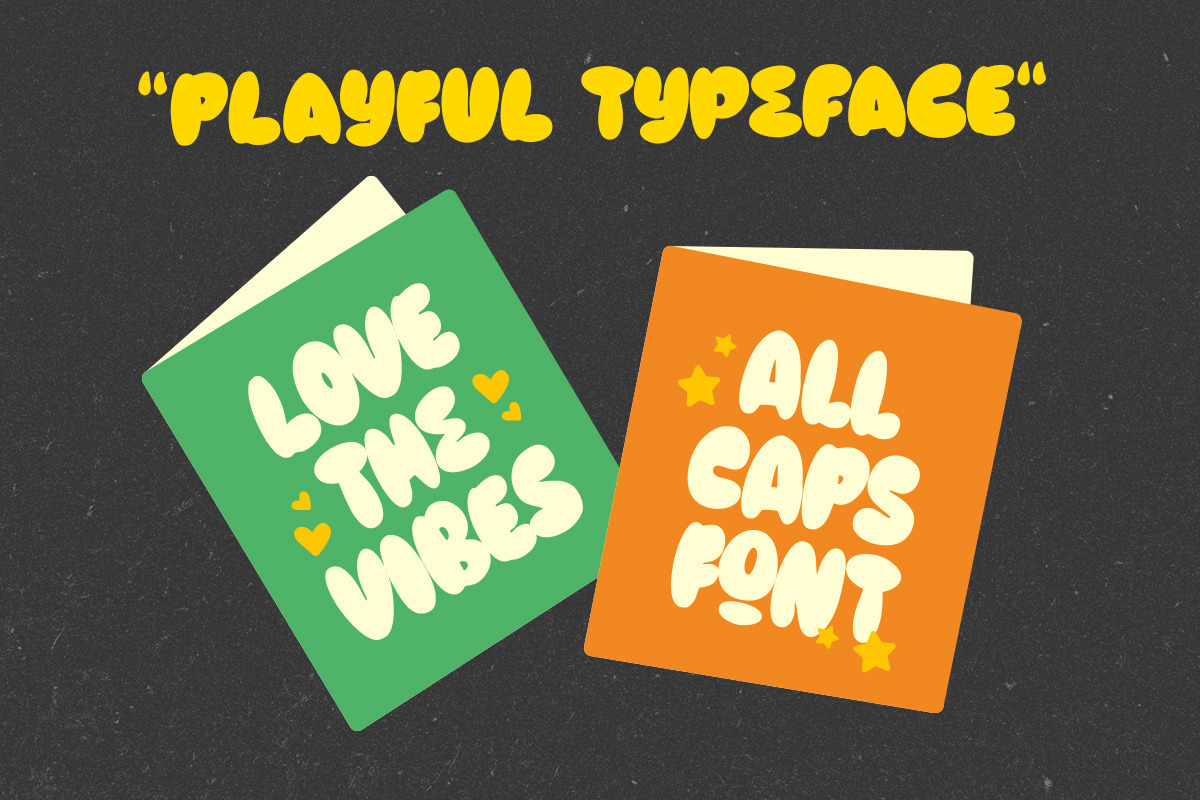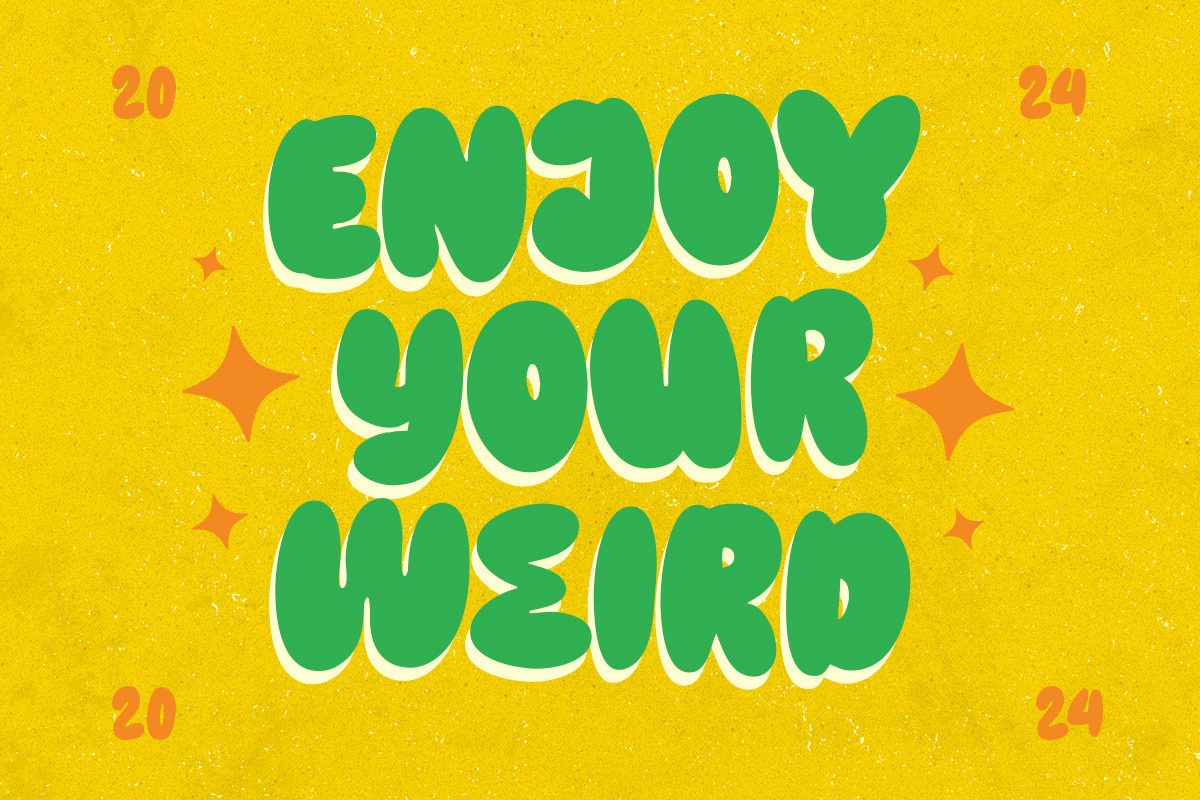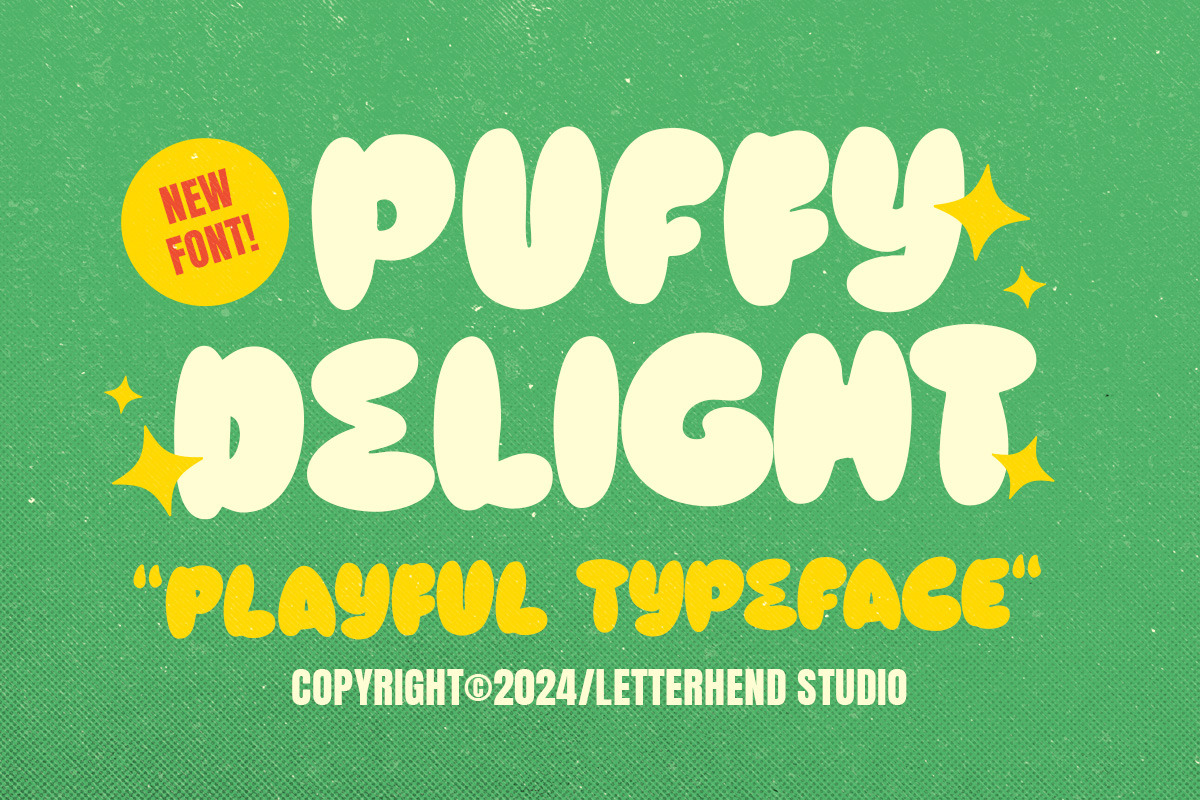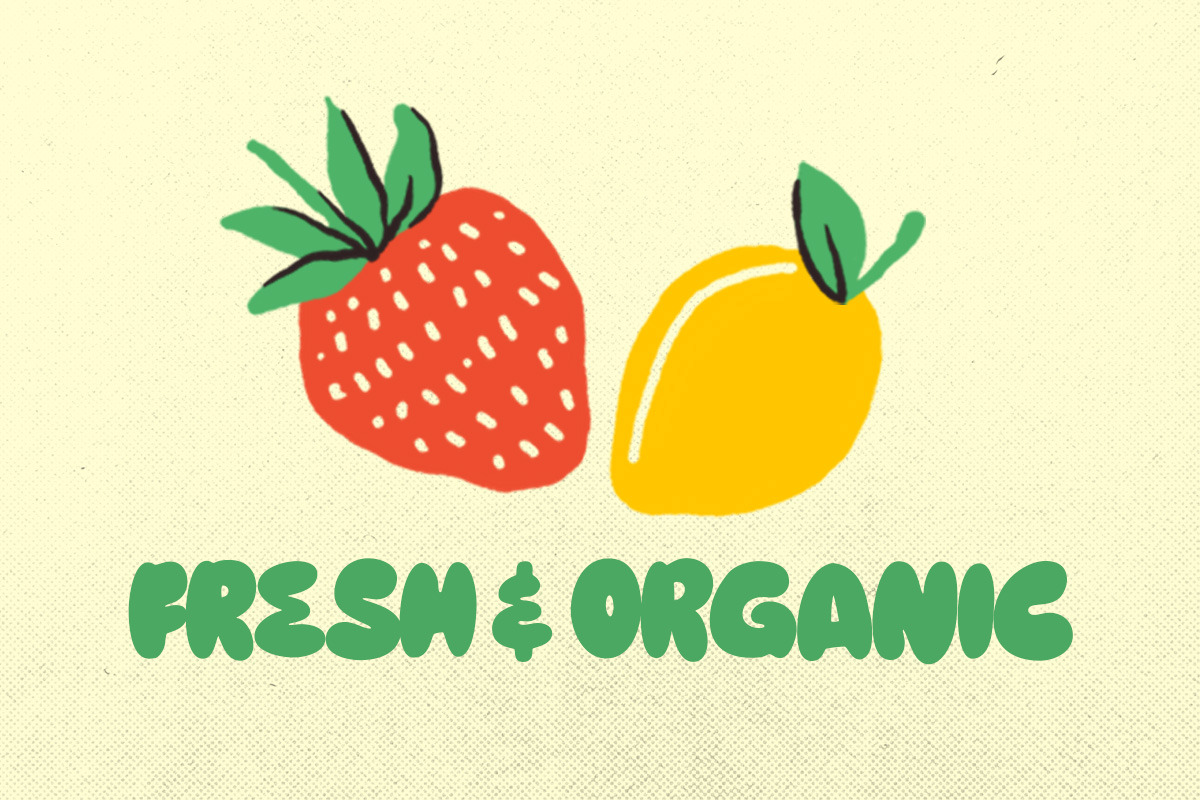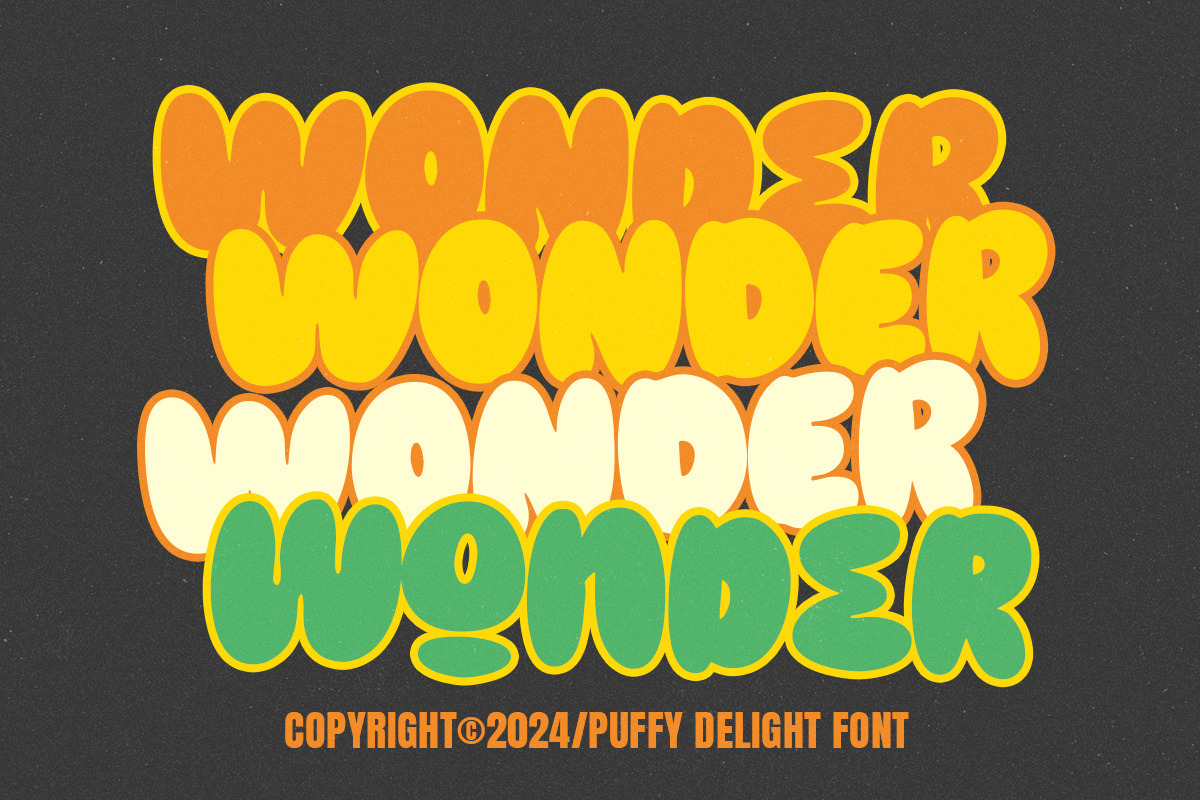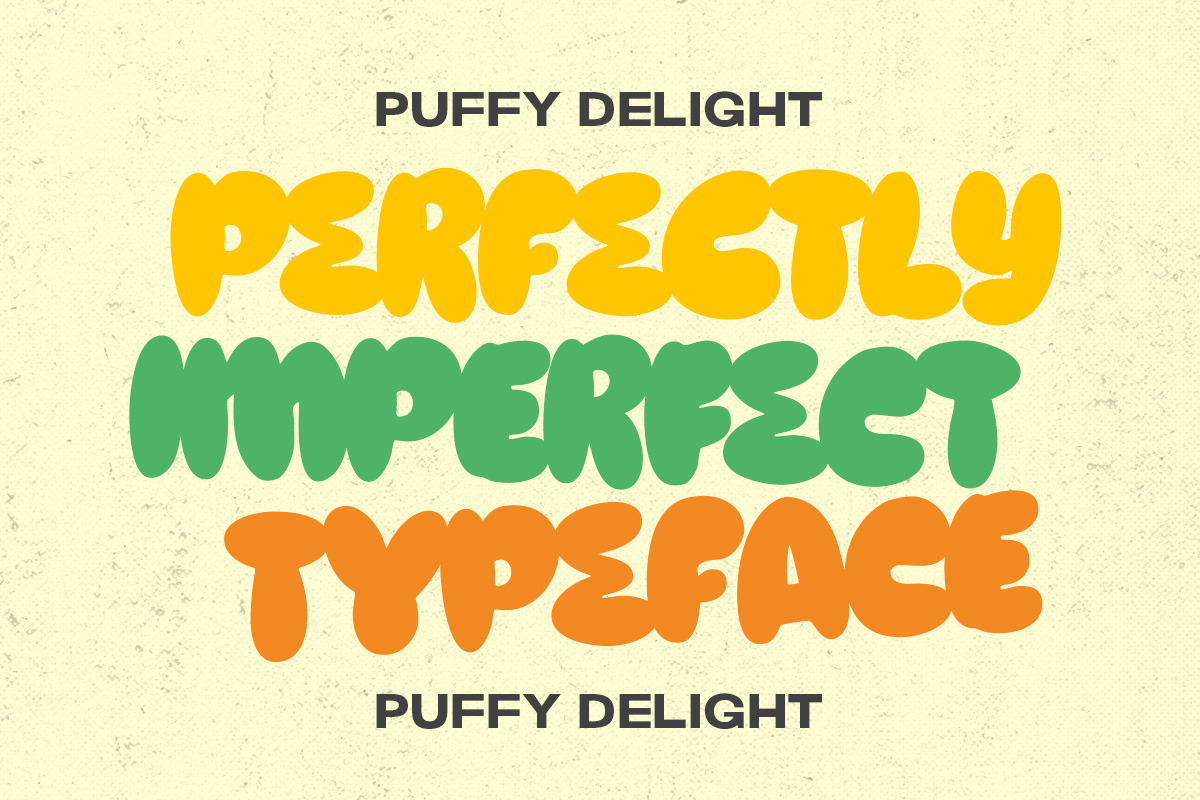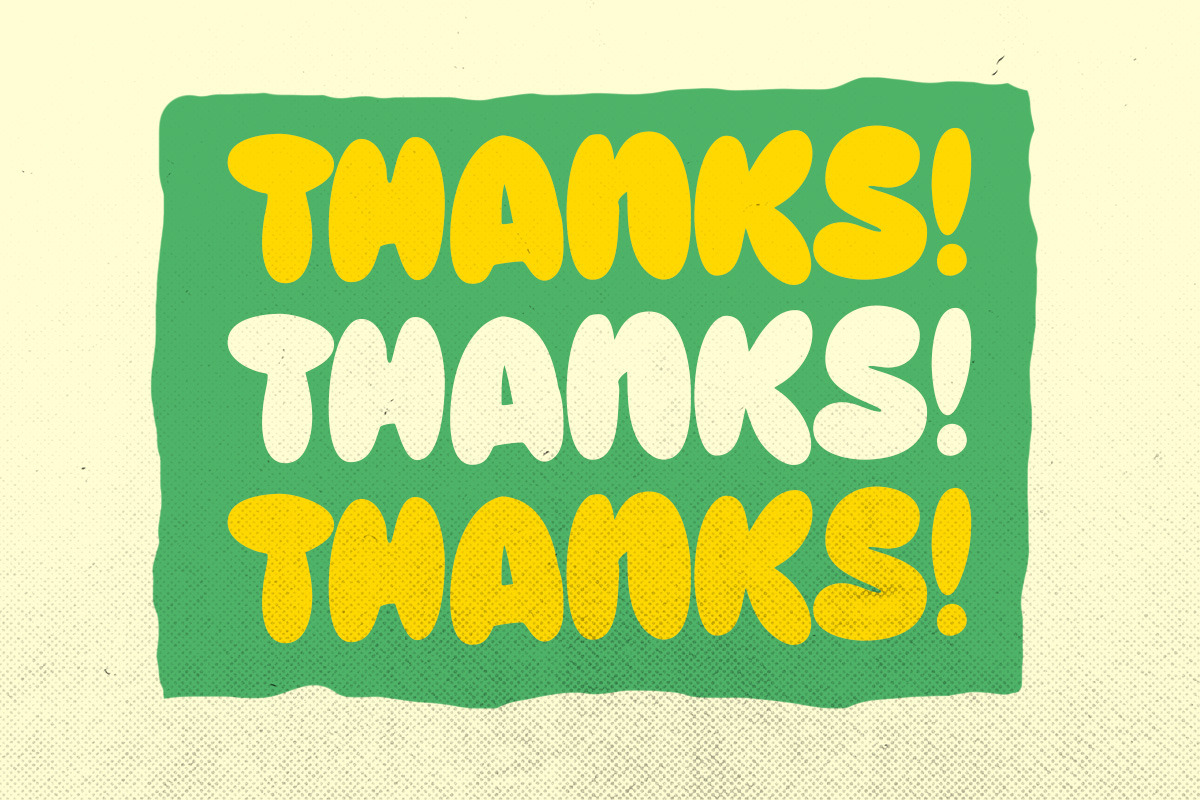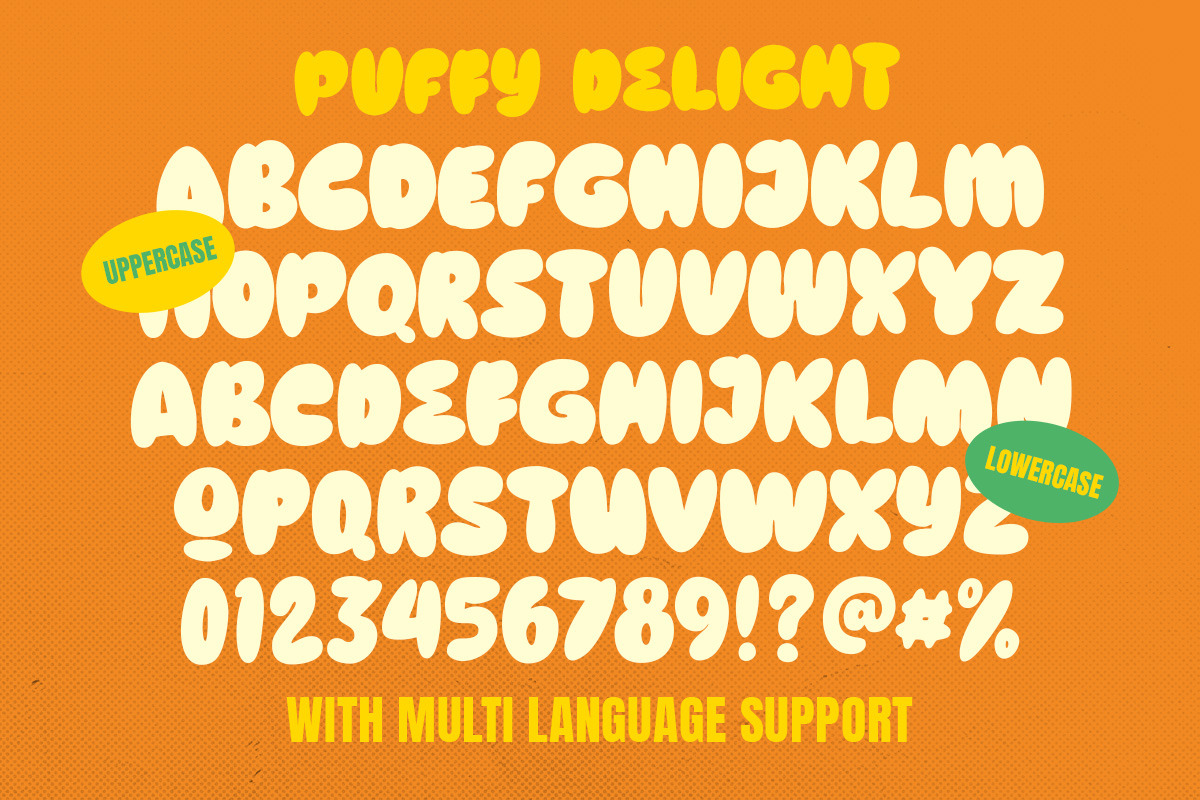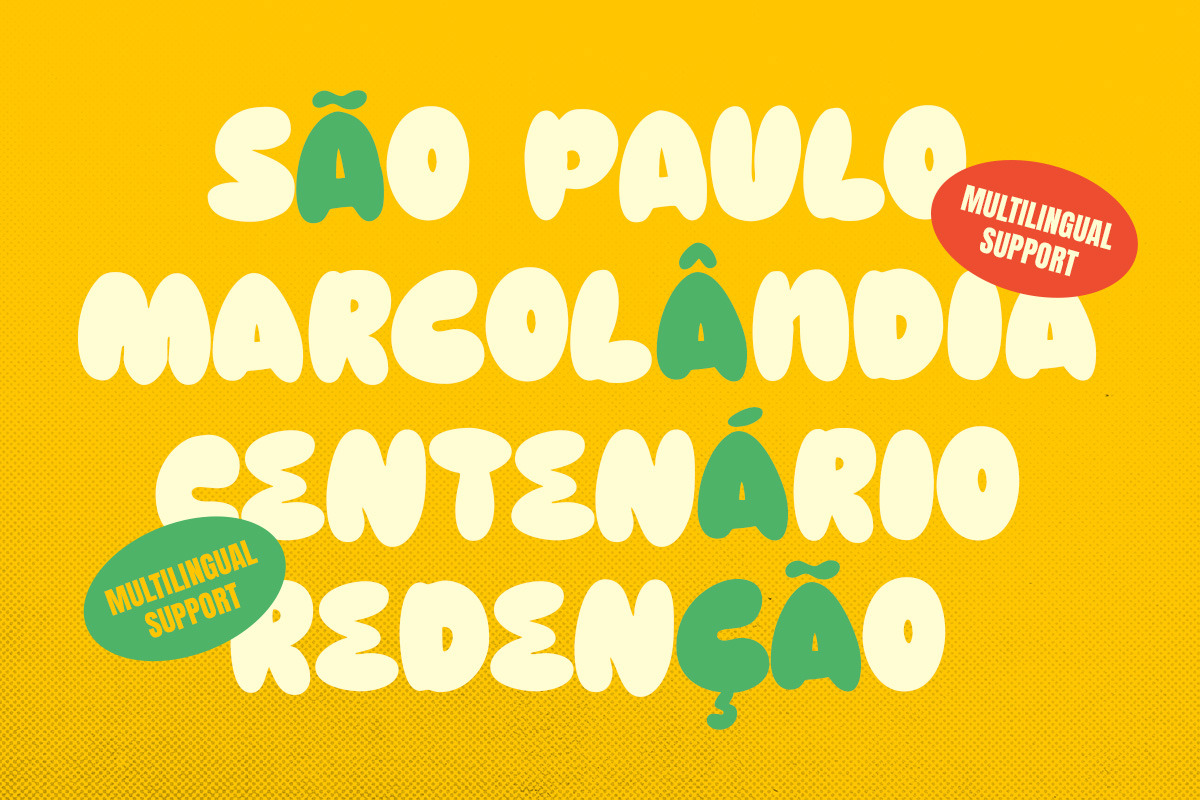
Puffy Delight - Playful Display Font
Puffy Delight is a playful bold font with bubble letterform. This font will bring you back to retro feel.This font perfectly made to be applied especially in logo, and the other various formal forms such as invitations, labels, logos, magazines, books, greeting / wedding cards, packaging, fashion, make up, stationery, novels, labels or any type of advertising purpose.